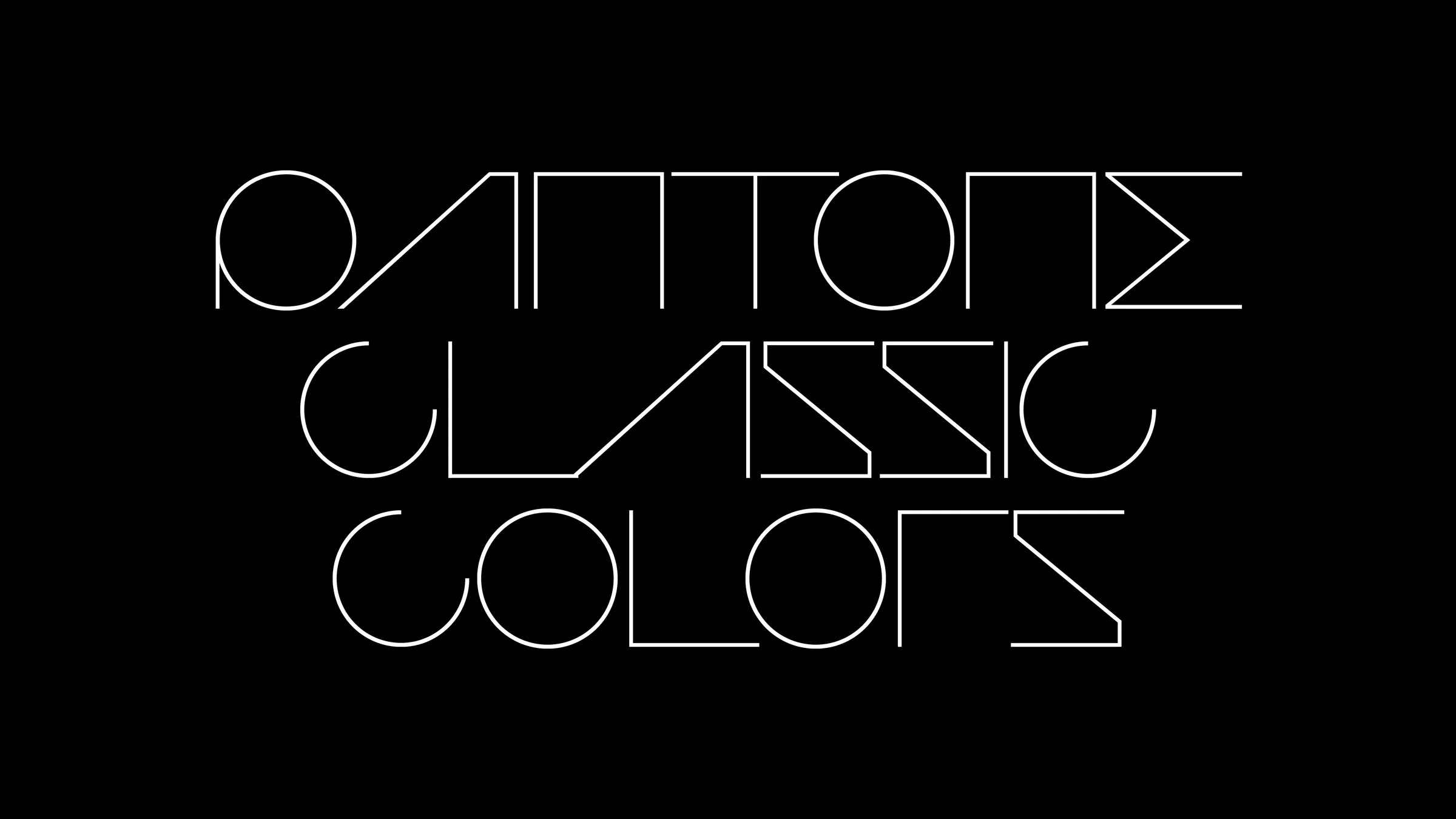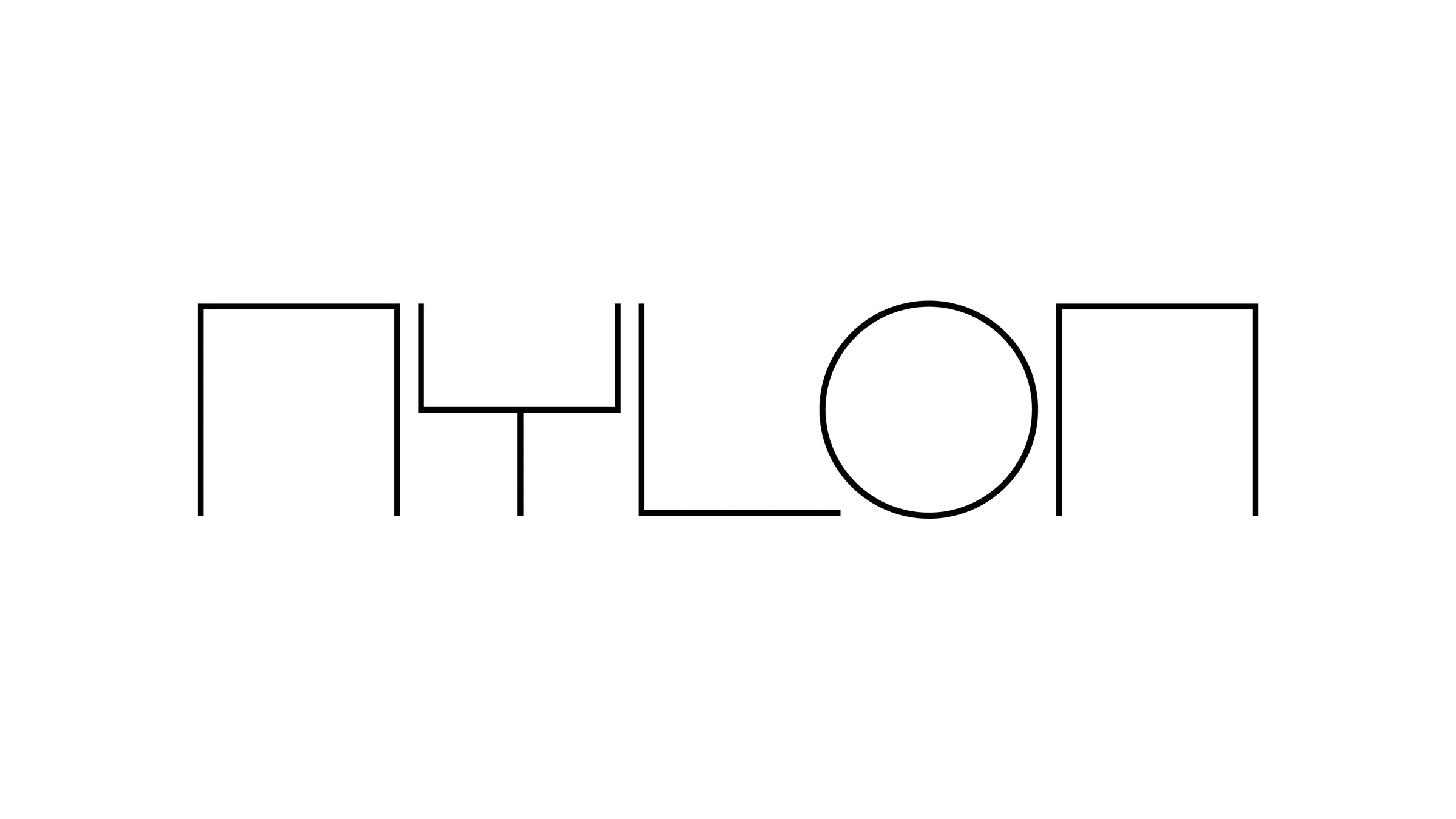
Onyx is a display typeface available only in capitals. Onyx has been designed as a cliché, perhaps even a caricature of the typeface used in SciFi universes in sets or other objects appearing in the image. This kind of typeface is intended to be a form of evolution of our Latin writing system in the future, keeping a known structure so that the viewer can still read parts of it, but bringing in new features and alternative ways of constructing a letter. So legibility is largely sacrificed to make way for shapes that tell a lot of stories, and set a clear tone for the content they carry. Onyx is intended to be used in the form of fake graphics inserted on a fake spaceship pilot screen, or something like that...